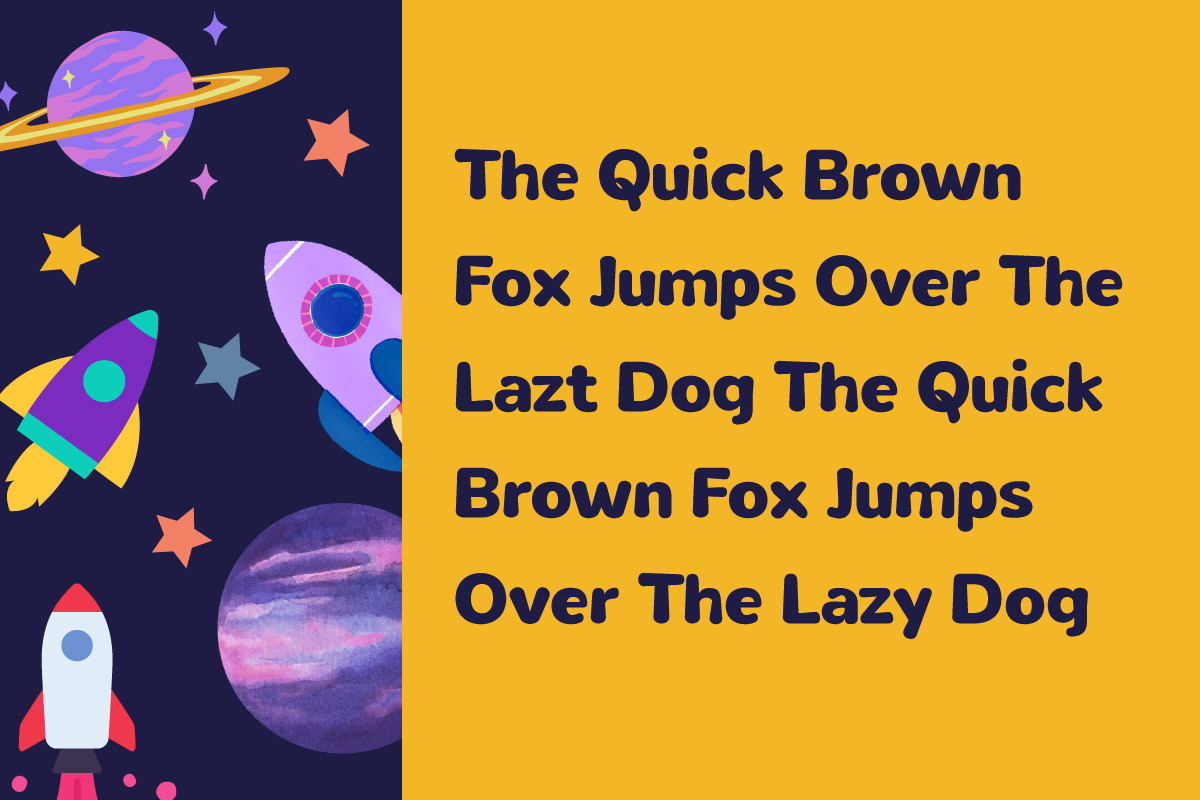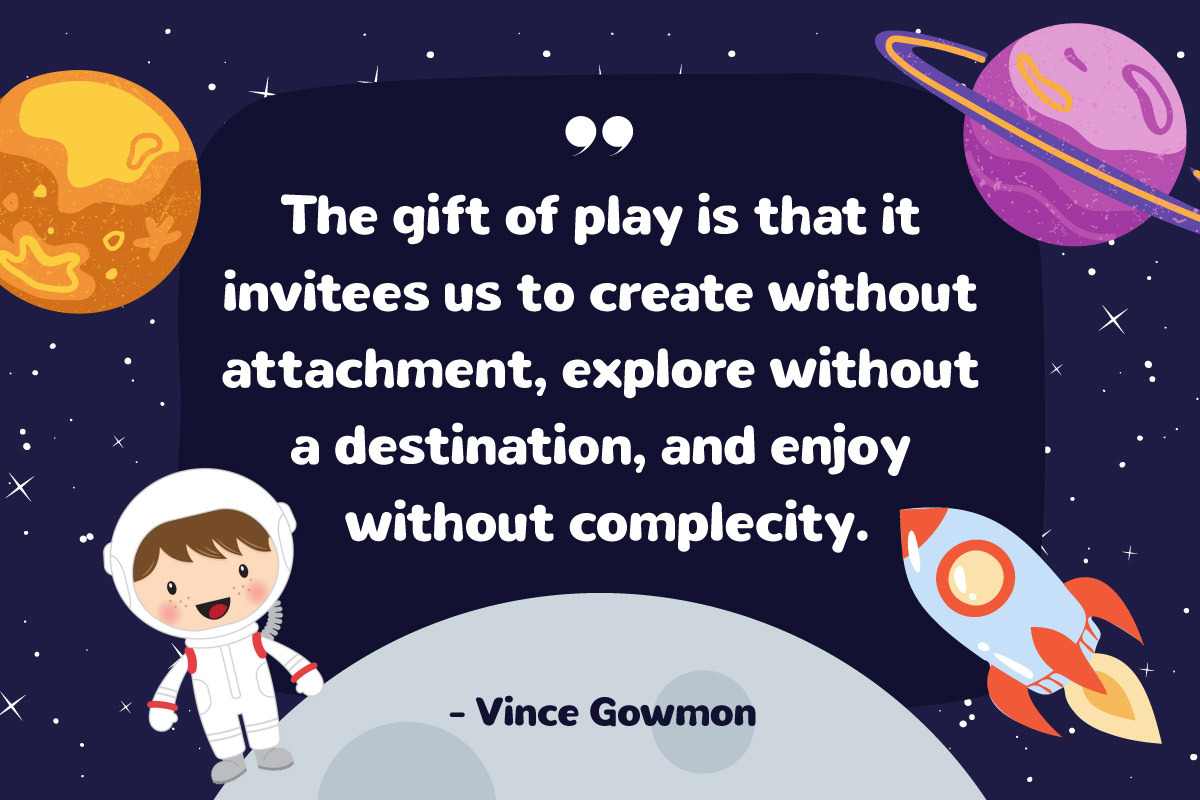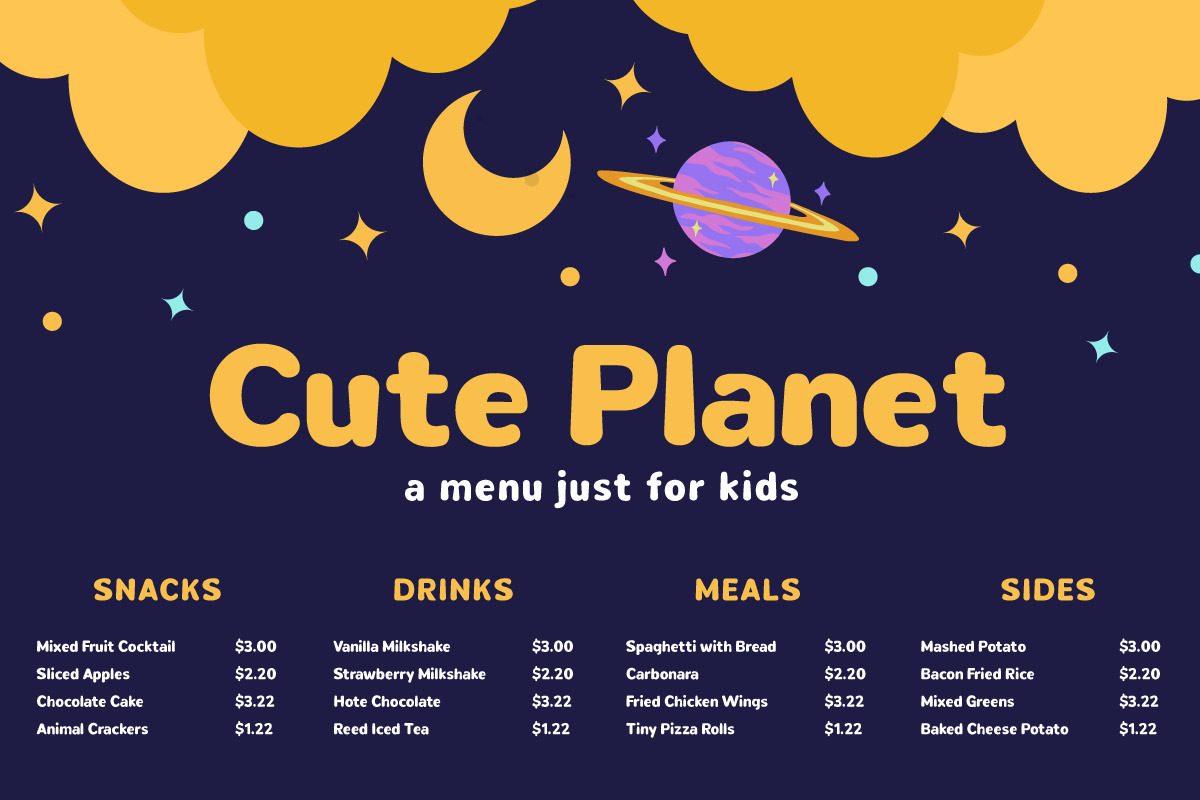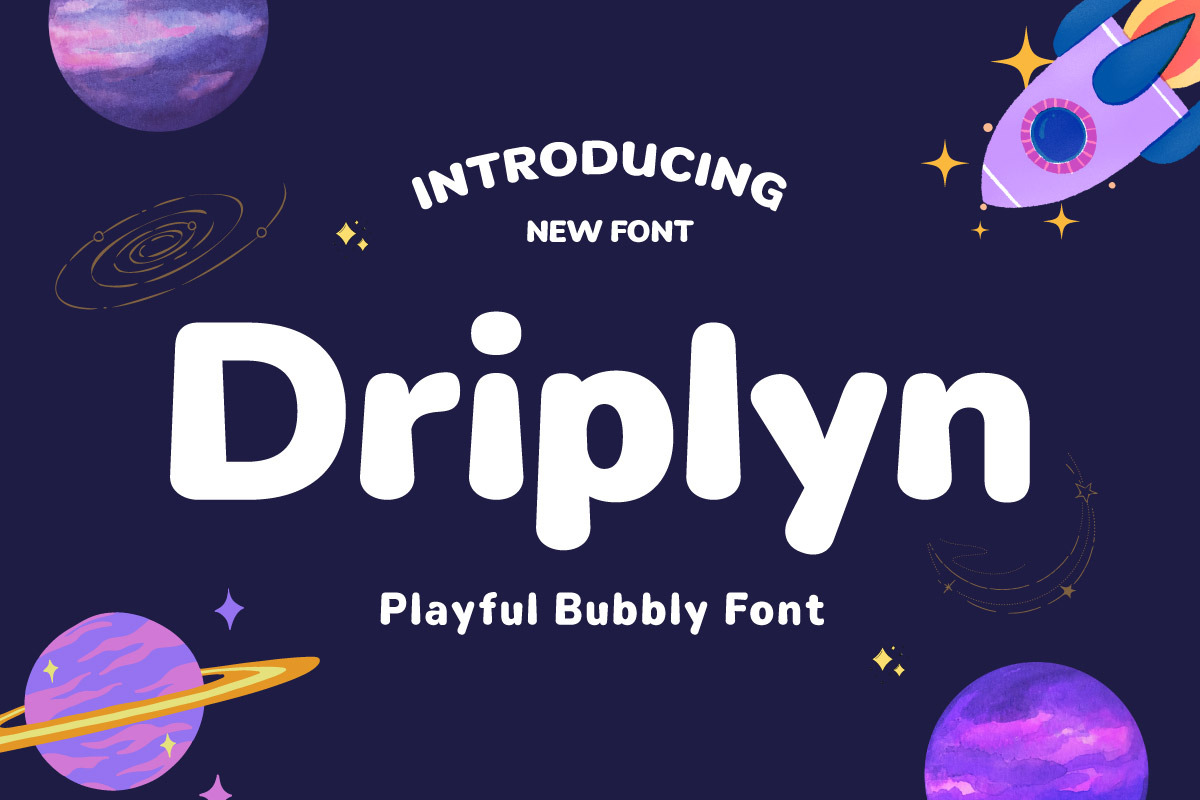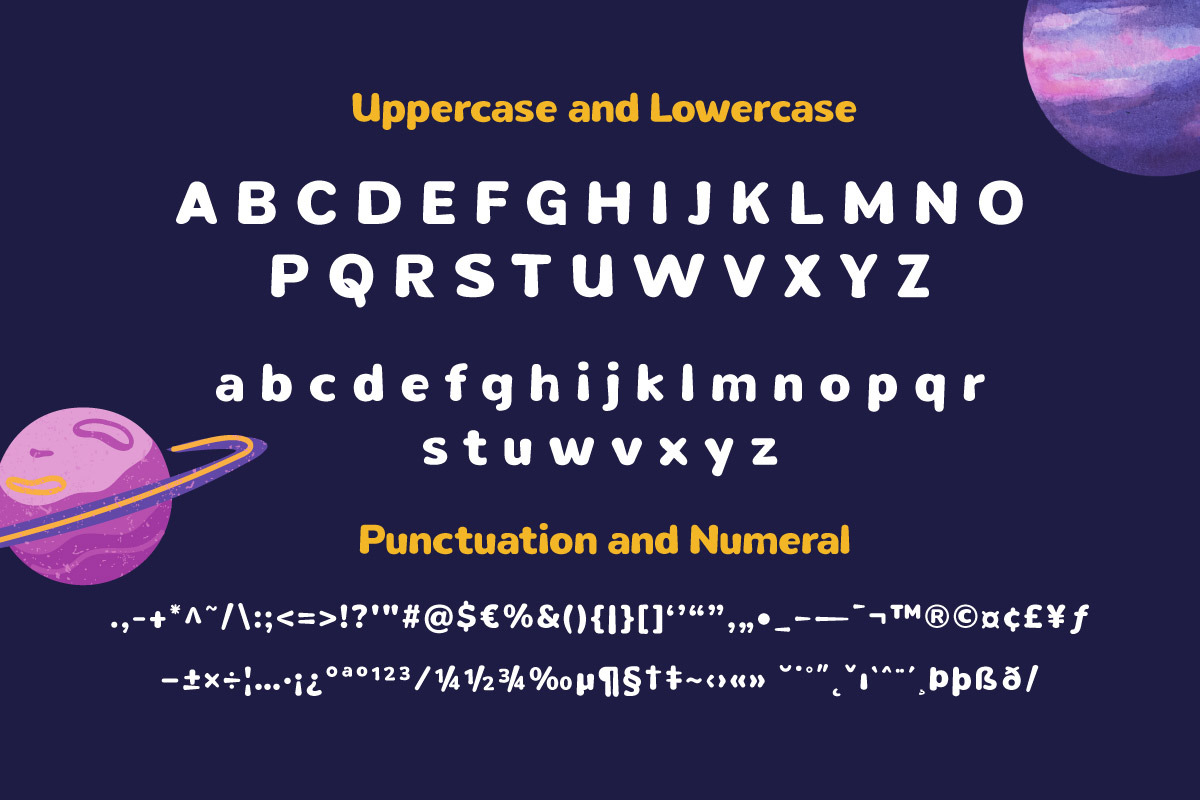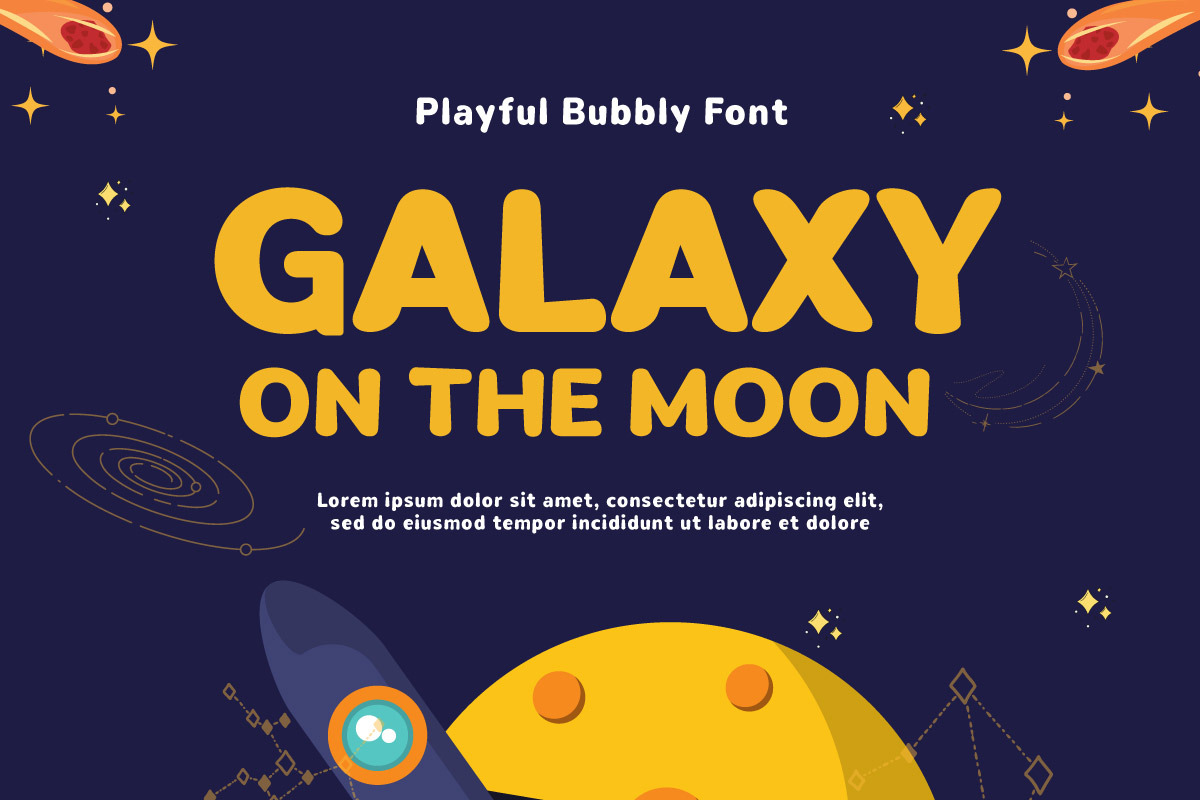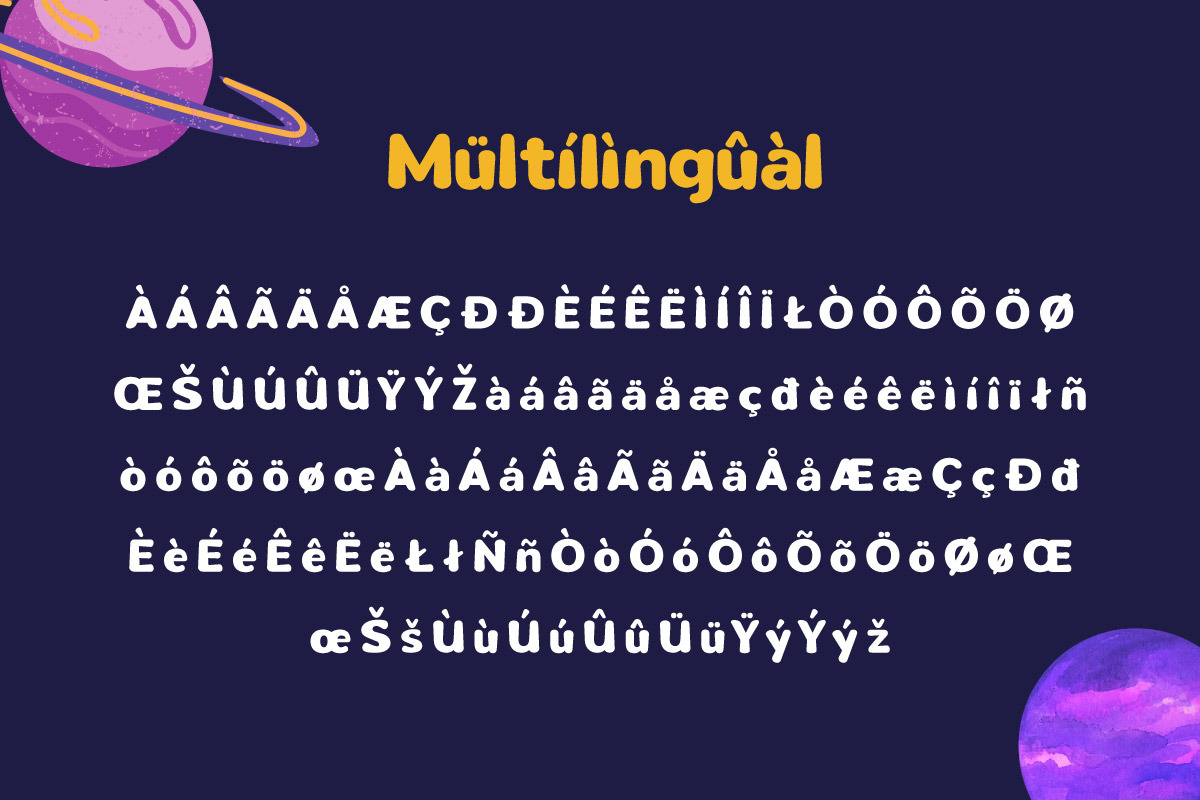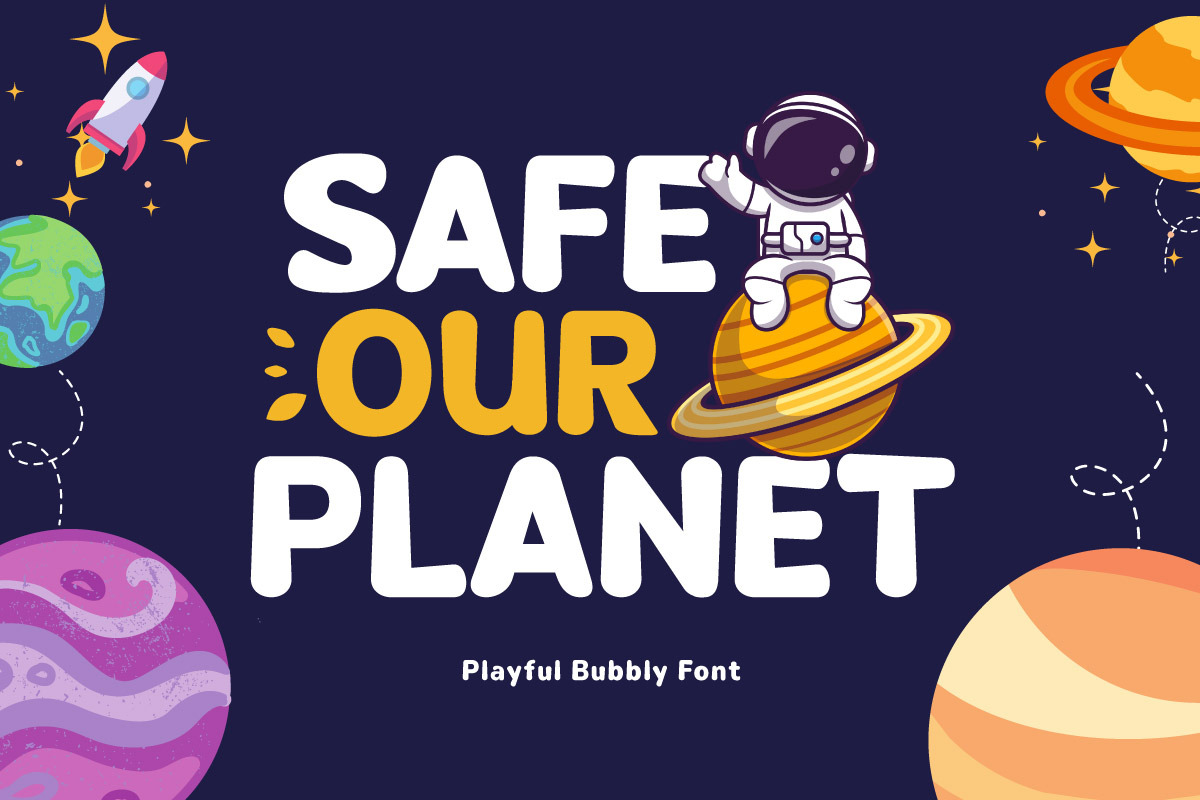
Driplyn - Playful Display Font
Driplyn is a playful display font that’s all about joy. Its fun, friendly characters make it perfect for children’s books, party invitations, and any design where you want to create a happy, joyful mood. With Driplyn, your designs will always be full of life.
- Fonts include Multilingual: Support for 85 languages. Afrikaans, Albanian, Asu, Basque, Bemba, Bena, Breton, Catalan, Chiga, Cornish, Croatian, Czech, Danish, Dutch, Embu, English, Esperanto, Estonian, Filipino, Finnish, French, Friulian, Galician, Gusii, Hungarian, Indonesian, Irish, Italian, Kabuverdianu, Kalenjin, Kamba, Kikuyu, Kinyarwanda, Latvian, Lithuanian, Lower, Sorbian, Luo, Luxembourgish, Luyia, Machame, Makhuwa-Meetto, Makonde, Malagasy, Maltese, Manx, Meru, Morisyen, North, Ndebele, Norwegian Bokmål, Norwegian Nynorsk, Nyankole, Oromo, Polish, Portuguese, Quechua, Romanian, Romansh, Rombo, Rundi, Rwa, Samburu, Sango, Sangu, Scottish, Gaelic, Sena, Serbian, Shambala, Shona, Slovak, Slovenian, Soga, Somali, Spanish, Swahili, Swedish, Swiss German, Taita, Teso, Turkish, Upper Sorbian, Uzbek (Latin), Volapük, Vunjo, Walser, Zulu.